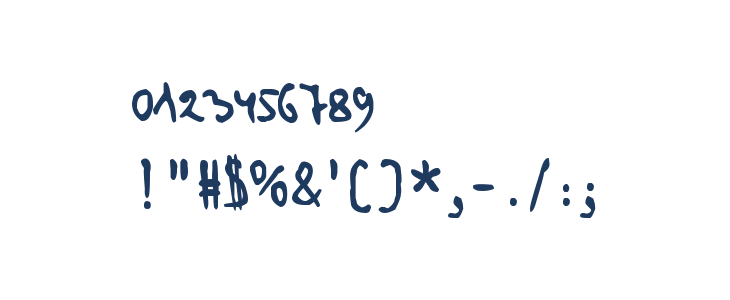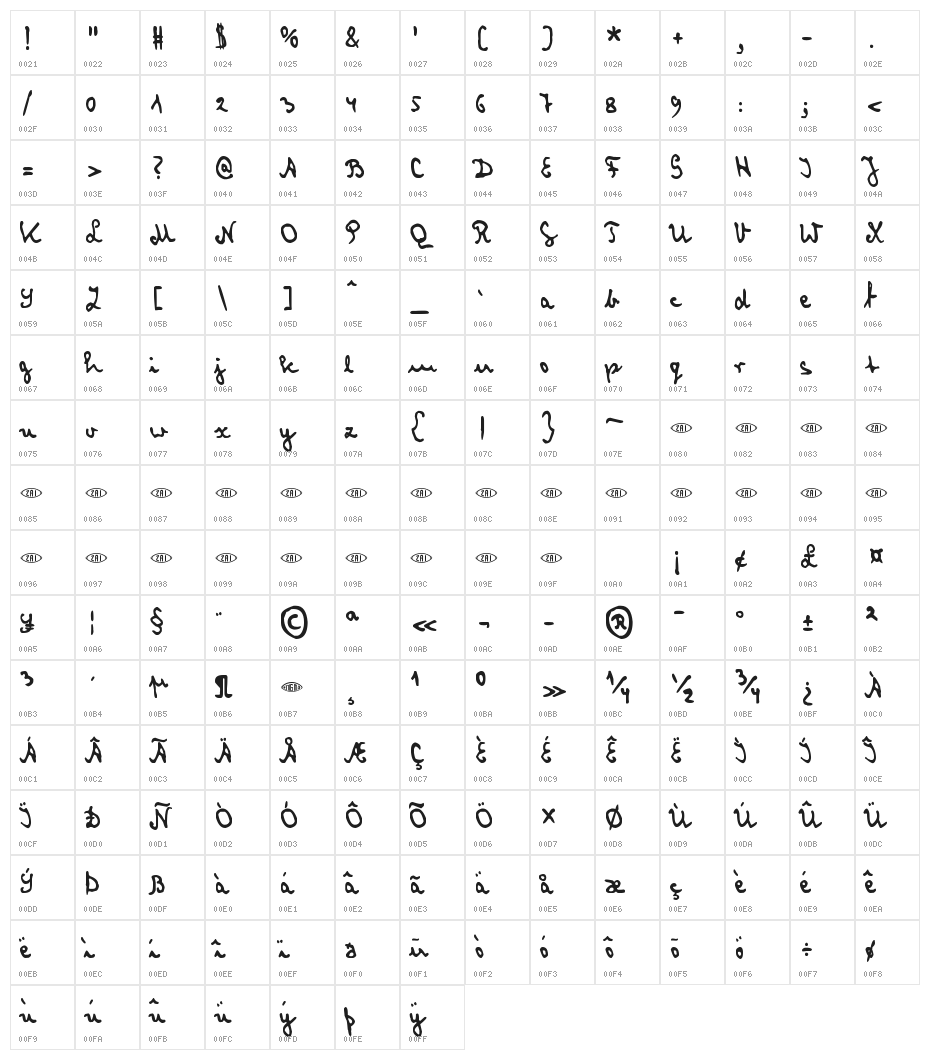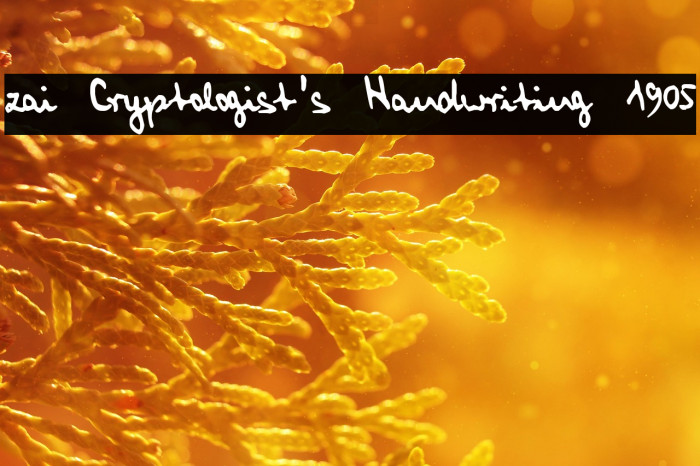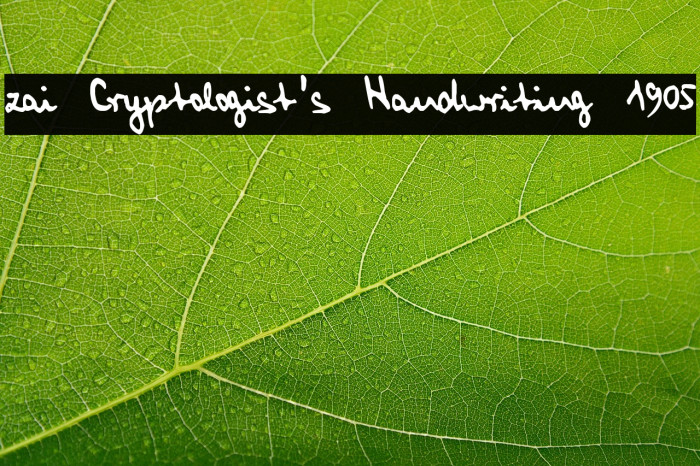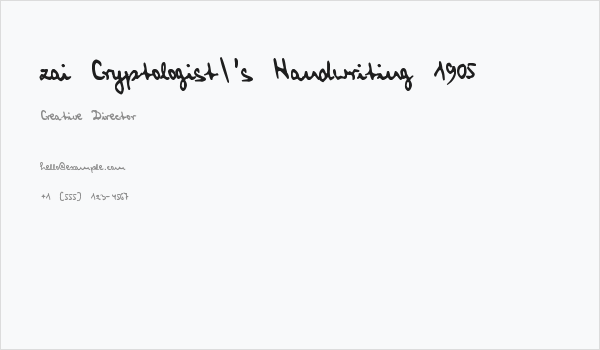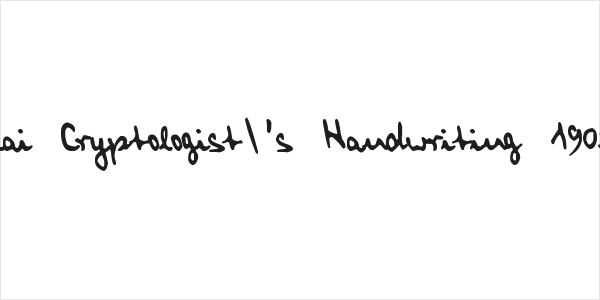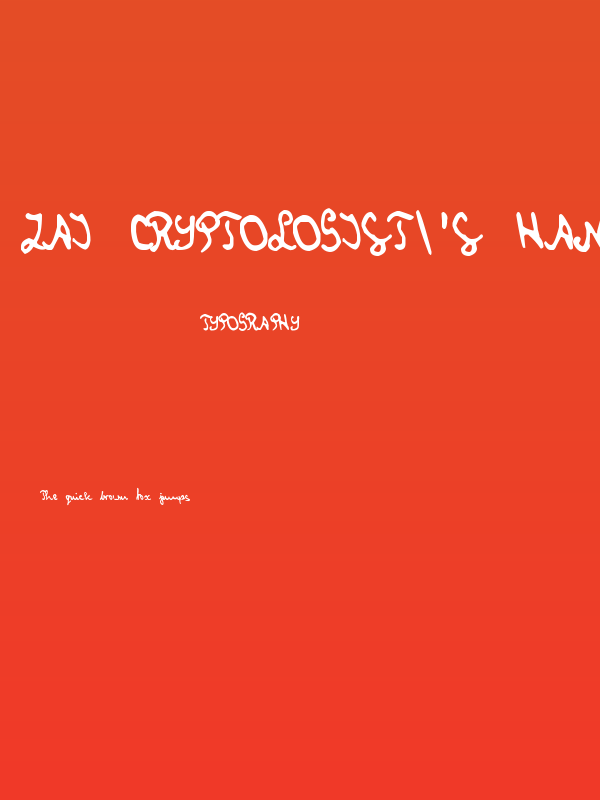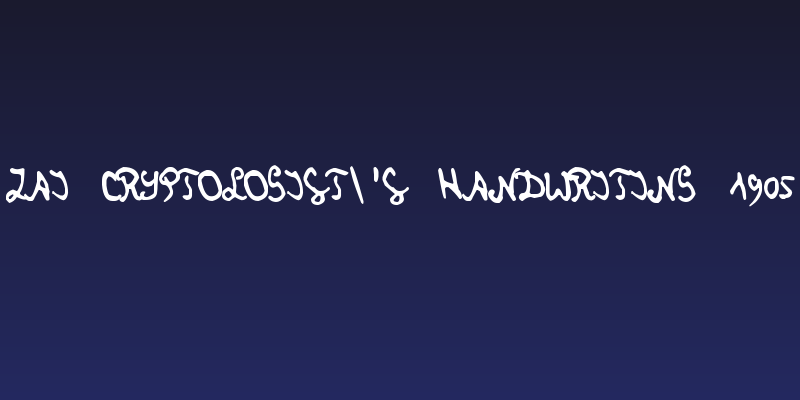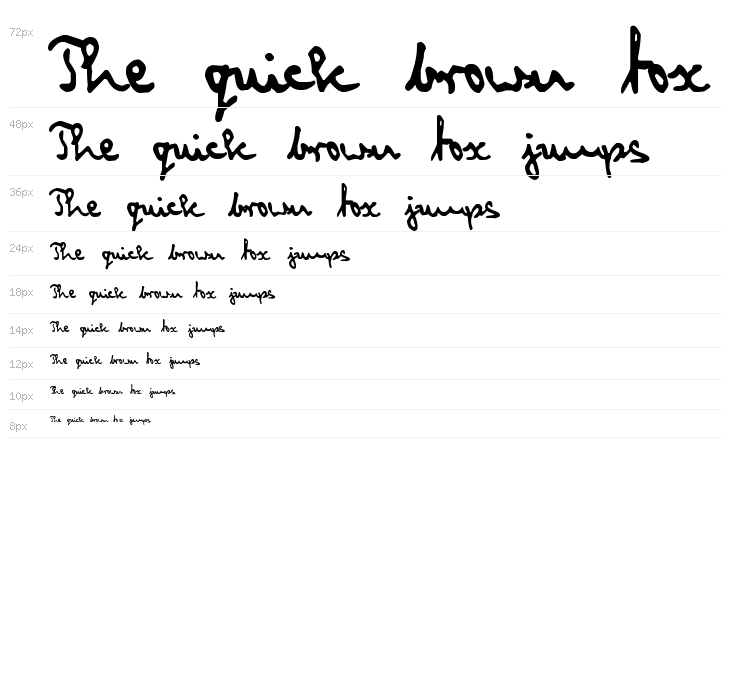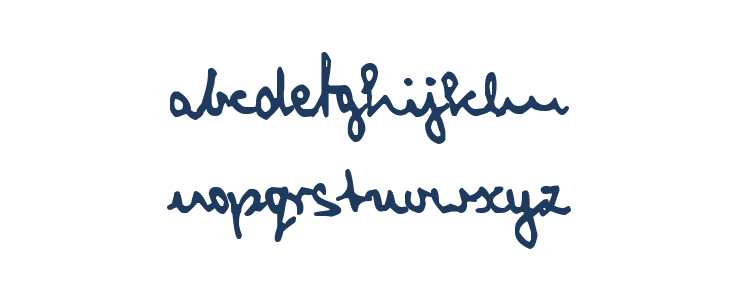
zai Cryptologist's Handwriting 1905 Font
zai Cryptologist's Handwriting 1905 Description
This font exudes a distinct handwritten style, reminiscent of personal notes or historical manuscripts. The characters are fluid and connected, giving an impression of continuous motion. Uppercase letters maintain a consistent height, while lowercase letters exhibit a playful variance in size and form. Numbers and special characters are crafted with the same flowing strokes, ensuring uniformity across the set. The overall appearance is casual yet sophisticated, making it suitable for projects that require a personal touch or a vintage aesthetic.
Overall StyleVintage
Use CaseLogos, Invitations, Personal notes
Proposed ProjectsIdeal for greeting cards, invitations, personal branding, and vintage-themed designs.